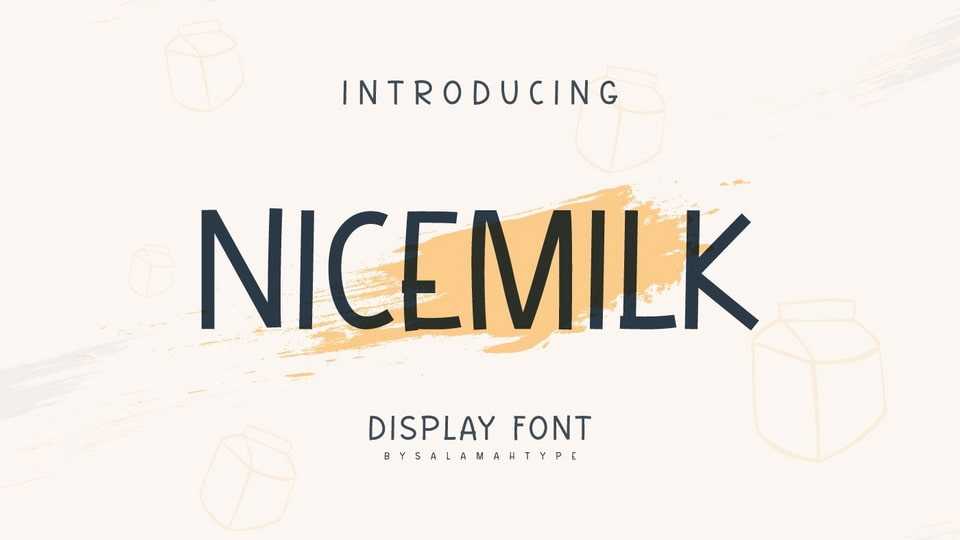
Download Nicemilk font, a unique typeface with all-caps style. Nicemilk font is perfect for your projects, branding products, logos, product packaging, merchandise and more.